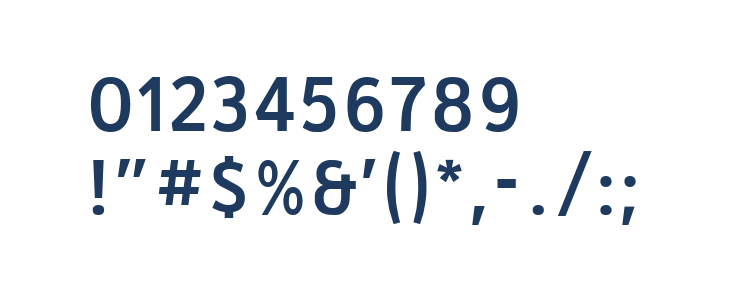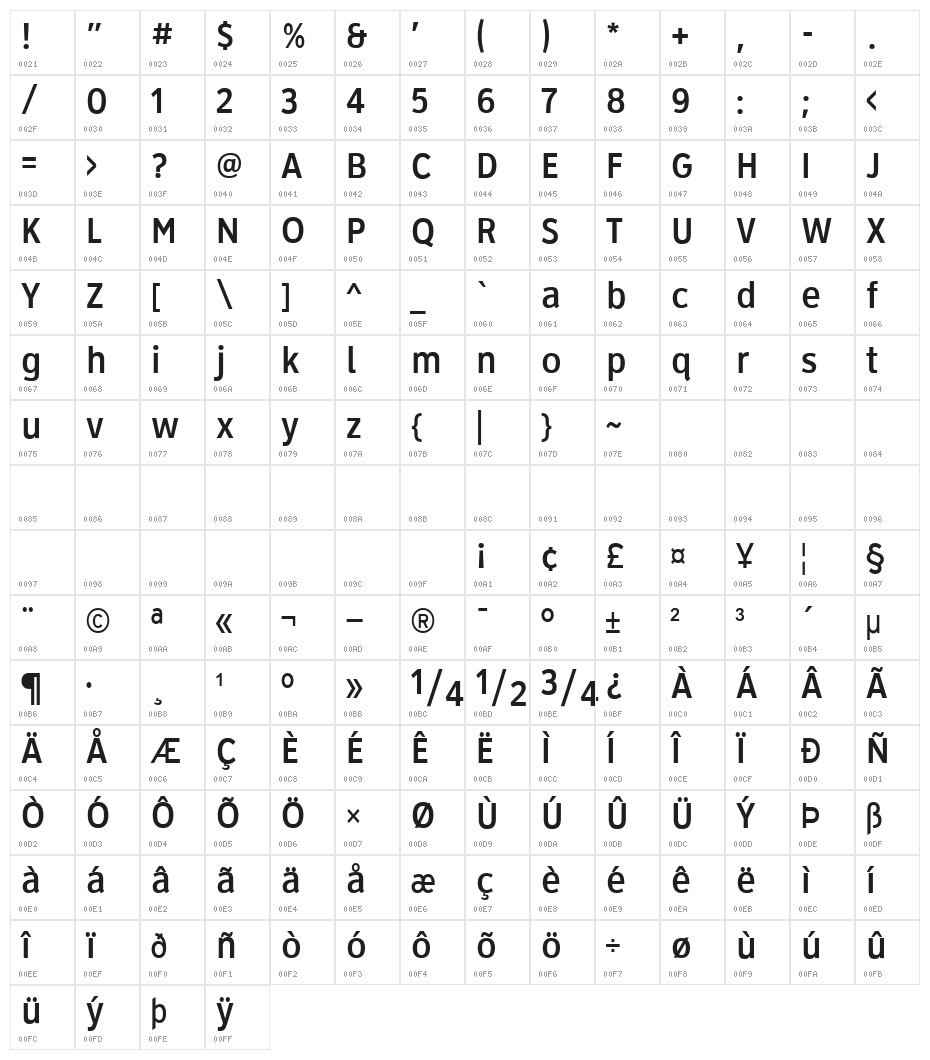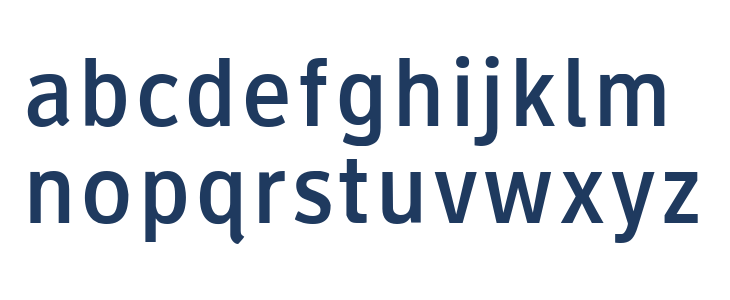
Roadgeek 2005 Series 3W Font
Roadgeek 2005 Series 3W Description
This font features a clean, modern sans-serif design with uniform stroke widths, providing excellent legibility. The characters are well-proportioned, with a slightly condensed appearance that enhances readability in various contexts. The uppercase letters are bold and assertive, while the lowercase letters maintain a consistent style, offering a harmonious balance. The numerals are clear and distinct, making them suitable for both digital and print applications. Special characters are well-integrated, ensuring versatility across different uses.
Michael D. Adams - www.triskele.com/roadgeek-fonts/
| Use Case | Headlines, Signage, Digital interfaces |
| Proposed Projects | Ideal for road signage, informational displays, digital interfaces, and branding materials. |